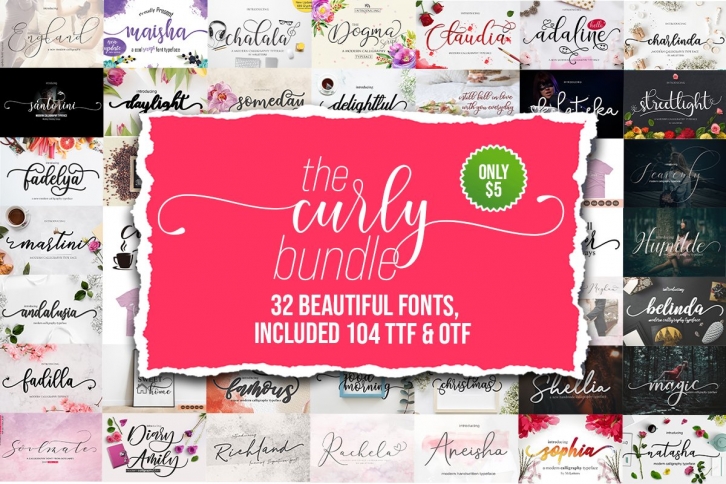
The Curly Bundle is a beautiful font that was designed by MrLetters. It's a great choice for designers and creatives who need such a font. It was released on June 18, 2021 and the file size is 4.42 MB. The Curly Bundle may give a more youthful, expressive and casual look to your project. It is a very beautiful, refined, elegant, and high-quality font.